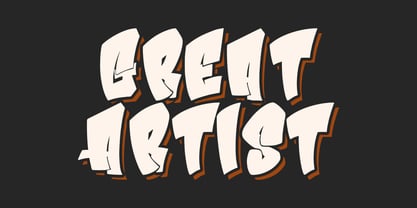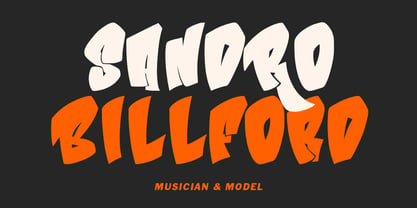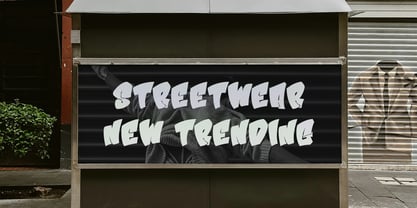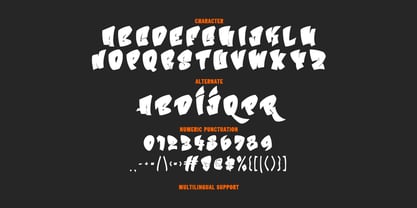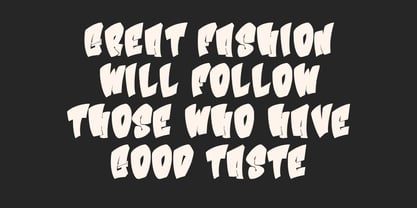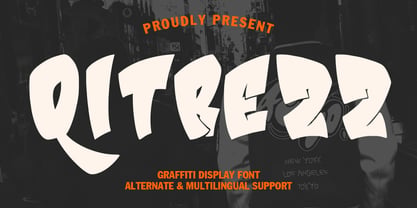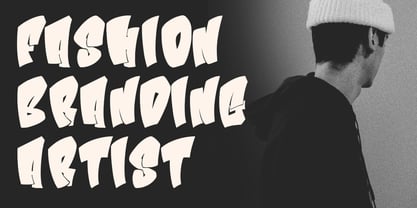
MC Qitrezz
by Maulana Creative
The MC Qitrezz Font Family was designed by Gilang Maulana and published by Maulana Creative. MC Qitrezz contains 1 styles. More about this family
Qitrezz is a fancy graffiti style font. With back slanted bold stroke, fun character with a bit of alternates. To give you an extra creative work. Qitrezz font support multilingual more than 100+ language. This font is good for logo design, Social media, Movie Titles, Books Titles, a short text even a long text letter and good for your secondary text font with sans or serif. Make a stunning work with Qitrezz font.
Designers: Gilang Maulana
Foundry: Maulana Creative